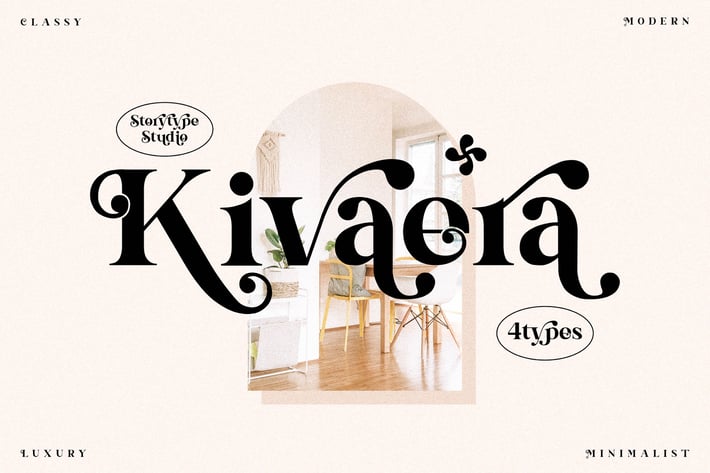
Kivaera Stylish Serif Font
Kivaera is a stylish serif font that perfectly balances luxury, modernity, and artistic expression. With its elegant swashes and intricate letterforms, this typeface exudes confidence and creativity, making every word feel sophisticated and high-end. It’s designed for creators who want to blend classic charm with a fashionable edge.
Elegant serif design with artistic curves and decorative swashes
Four unique styles for versatile creative use
Optimized for print and digital media
Editorial and magazine layouts
Luxury branding and packaging
Wedding invitations and event stationery
Fashion, art, and lifestyle blogs
* Posters, quotes, and social media visuals
Bold, elegant, and modern — Kivaera brings timeless sophistication to every project with a touch of artistic flair.